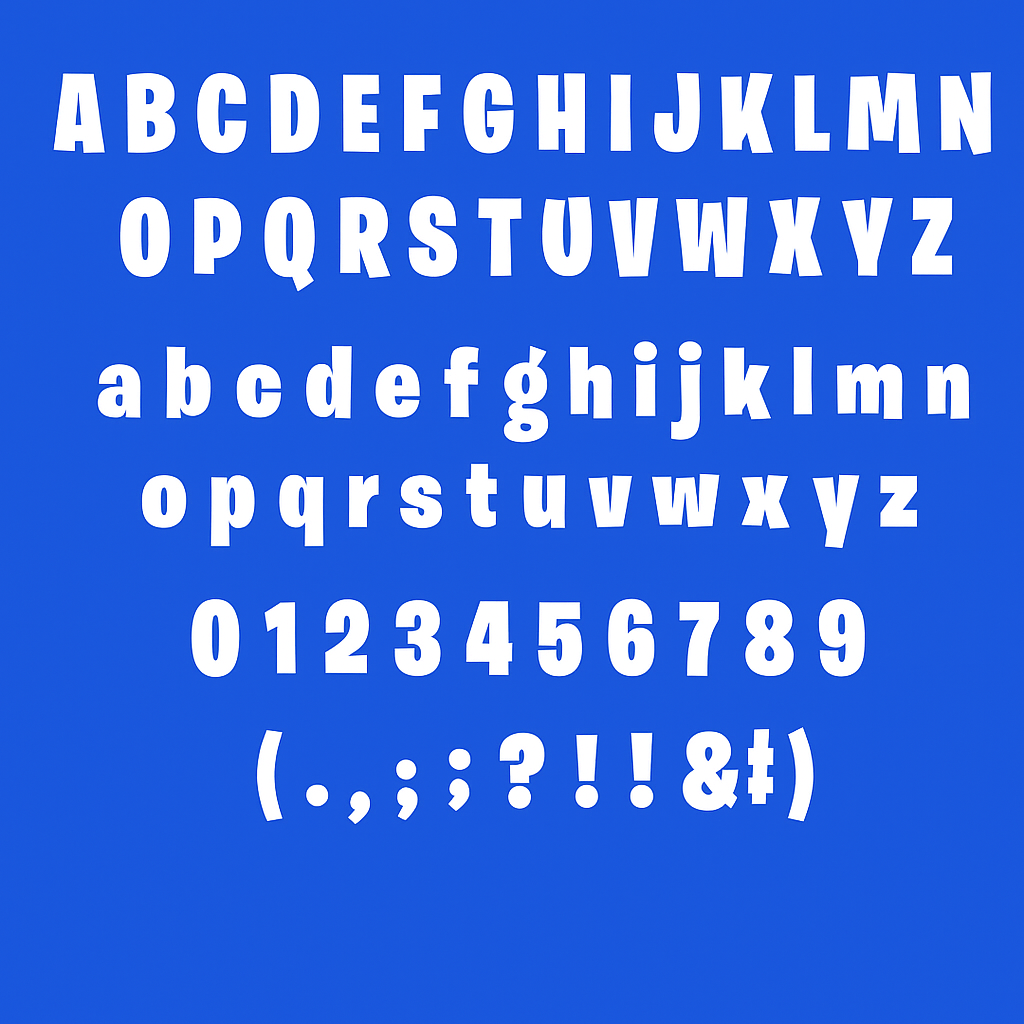
Fortnite font is the one that is bound to draw attention due to an effective visual aspect of the game. In addition to the gaming features, the impact of Fortnite is the graphic effects and the music, which create a memorable brand image. One of the most notable aspects of this identity is its unique typeface of a logo, the Fortnite font, which is always used in marketing campaigns, so one cannot easily forget the game.
What is Fortnite Font
The Fortnite text design refers to the customized programming code which displays the game’s official branding. Several users wrongly believe the text represents an original font design but originates from Burbank Big Condensed Bold.
This font is characterized by:
- Bold, thick lettering that makes it stand out.
- Rounded yet blocky appearance, giving it a modern and playful look.
- Slightly condensed spacing, making the letters appear tightly packed and energetic.
- A friendly yet dynamic vibe, complementing Fortnite’s casual and fun aesthetic.
This distinctive typeface has helped solidify Fortnite’s branding, making it instantly recognizable worldwide.
Features of the Fortnite Font
- Bold and Attention-Grabbing
Fortnite’s font is designed to stand out. Its thick strokes and condensed form make it highly visible, whether on a game cover, promotional material, or merchandise.
- Modern Yet Playful Design
Unlike overly rigid or formal fonts, Burbank Big Condensed Bold has a rounded, friendly appearance that matches Fortnite’s vibrant and fun theme.
- Versatility
While it is mainly used in Fortnite’s branding, this font style can also be adapted for gaming content, posters, social media graphics, and even YouTube thumbnails.
- Memorable and Recognizable
Many video games switch up their branding frequently, but Fortnite has kept this font for years. This consistency has made it one of the most recognizable gaming fonts today.
Applications of the Fortnite Font
The Fortnite font isn’t just for the game—it has numerous practical applications, including:
- Graphic Design Projects
Designers implement fonts inspired by Fortnite in their creation of posters and advertisements and banners alongside event promotions.
- Gaming Content Creation
The same fonts appear in YouTube thumbnails alongside Twitch overlays and social media posts since gamers and streamers want their brand identities to match Fortnite’s visual aesthetics.
- Merchandise and Apparel
The unique typography in Fortnite serves as motivation for many clothing brands who put it on T-shirts, hoodies and accessories to sell in their stores.
- Event Branding and Invitations
A Fortnite-themed event will benefit from using this font type in invitation creation and decoration elements to enhance the overall experience.
Alternatives to the Fortnite Font
- Poppins Extra Bold: A modern, geometric sans-serif font with a clean and professional look.
- Luckiest Guy: This Google Font is bold, fun, and slightly rounded, making it a great substitute.
- Big Noodle Titling: A narrow, condensed font with a bold look, somewhat similar to Fortnite’s branding.
- Impact: While not an exact match, Impact is a common bold font that can be used for gaming designs.
Conclusion
The Fortnite font serves as an essential design element which supports the appealing brand image of the game. The gaming content and merchandise projects alongside branding applications benefit from this font based on Burbank Big Condensed Bold. This bold and modern typeface serves gaming needs perfectly.